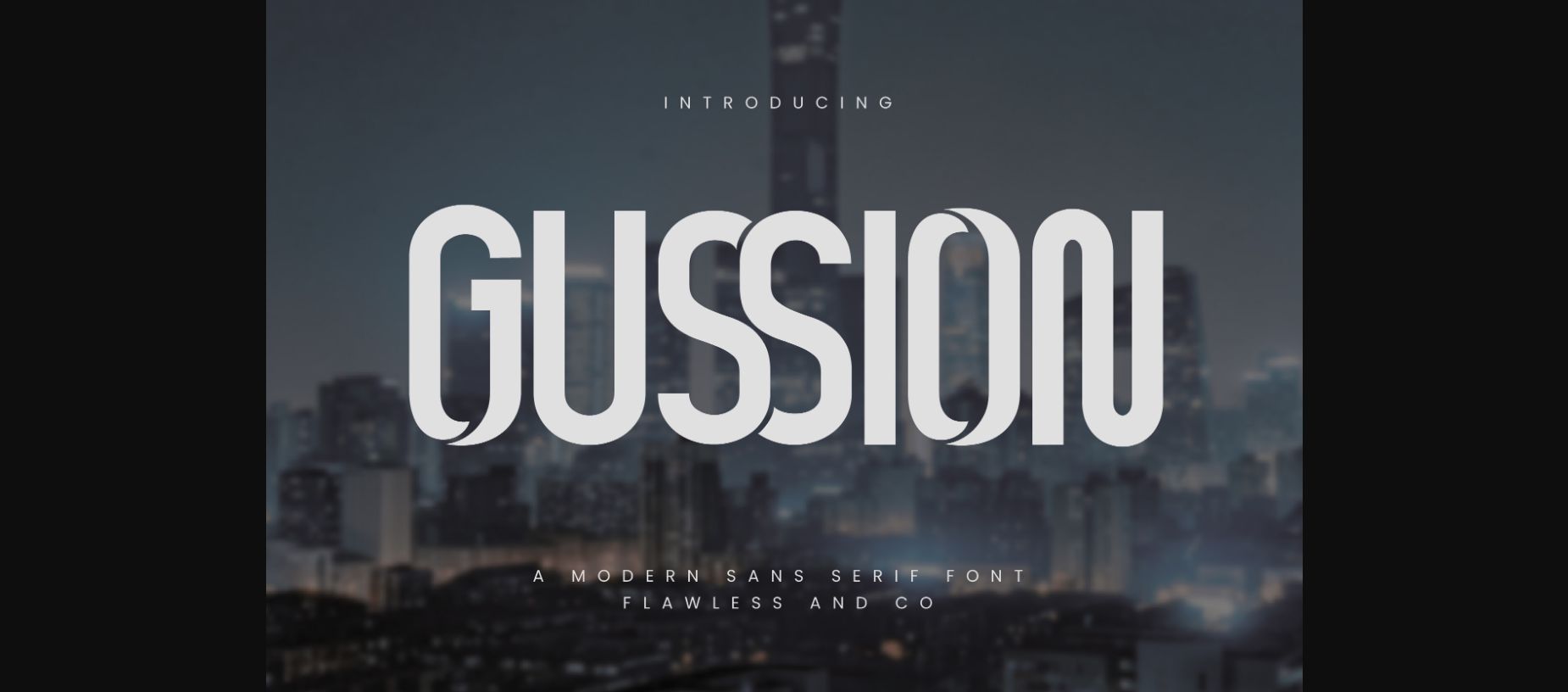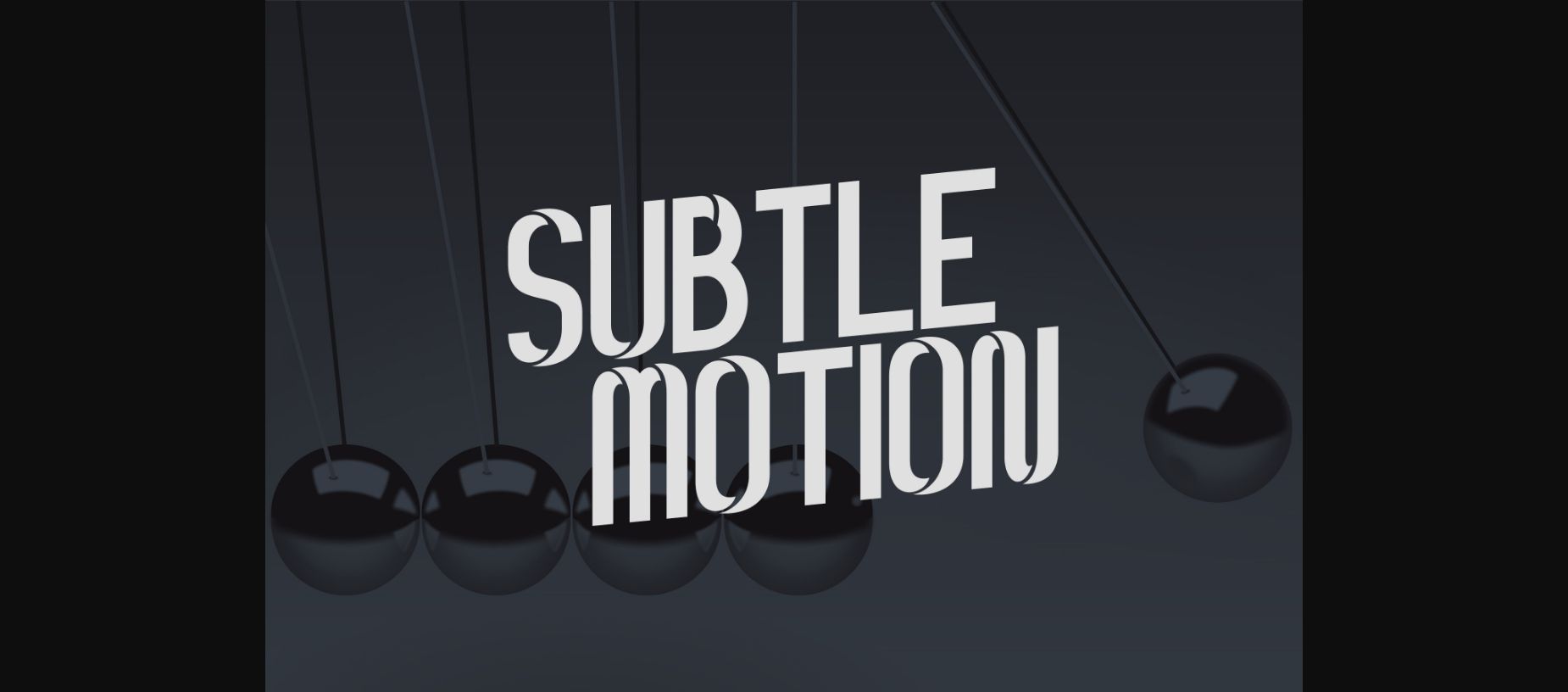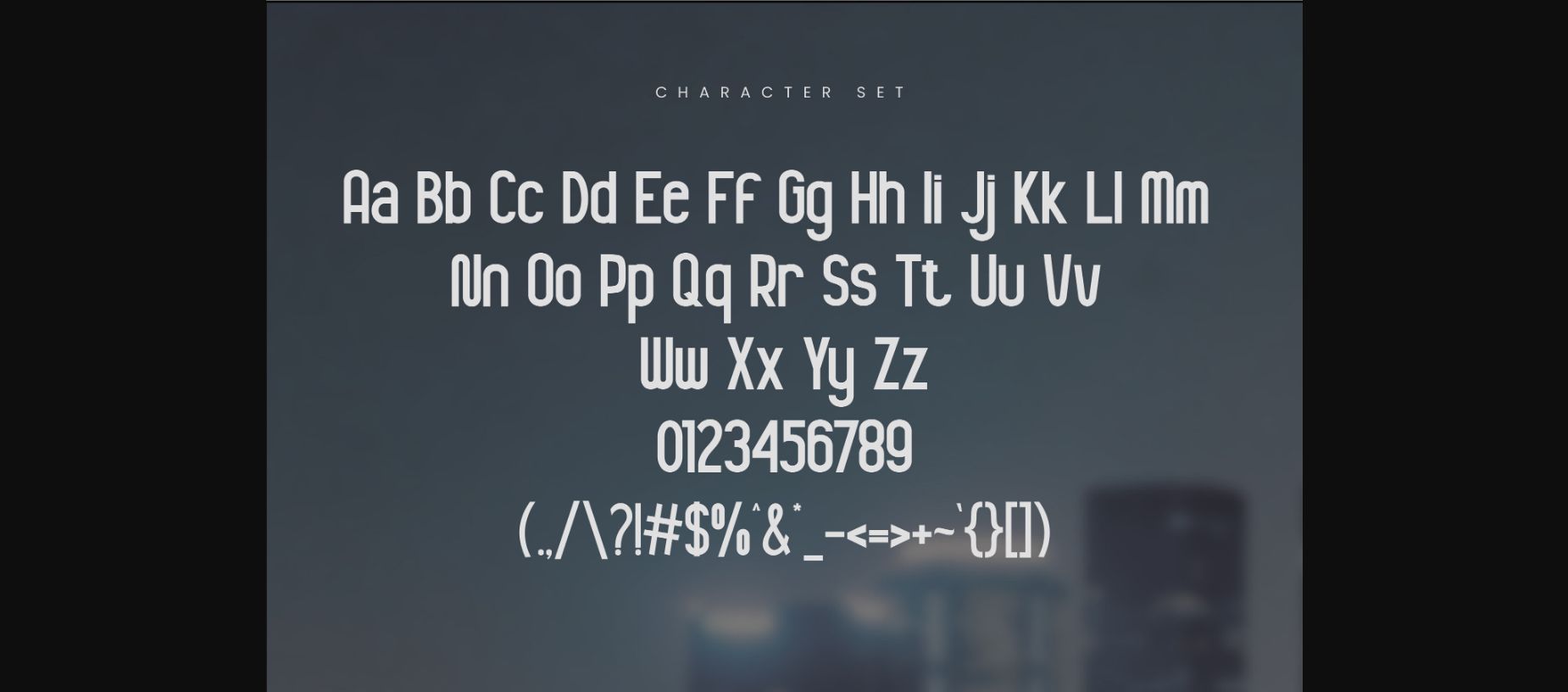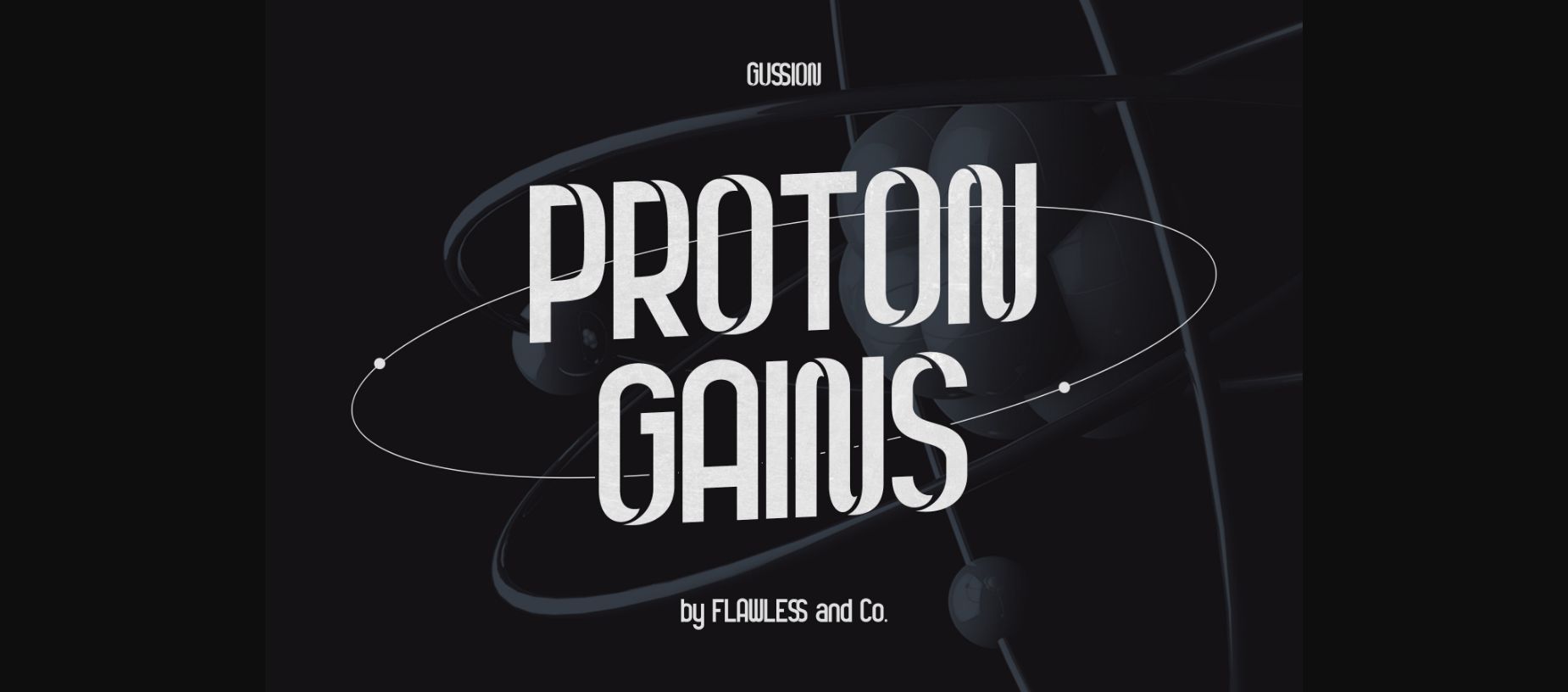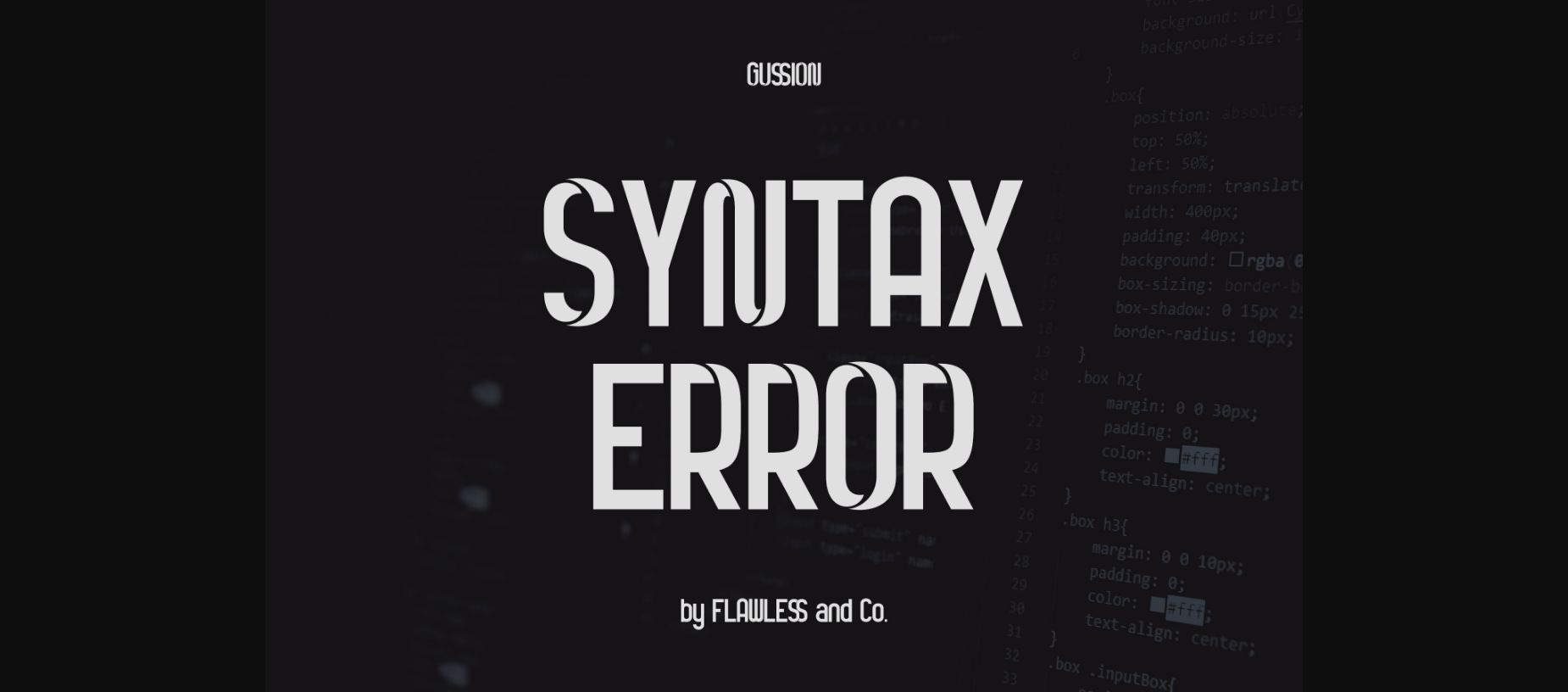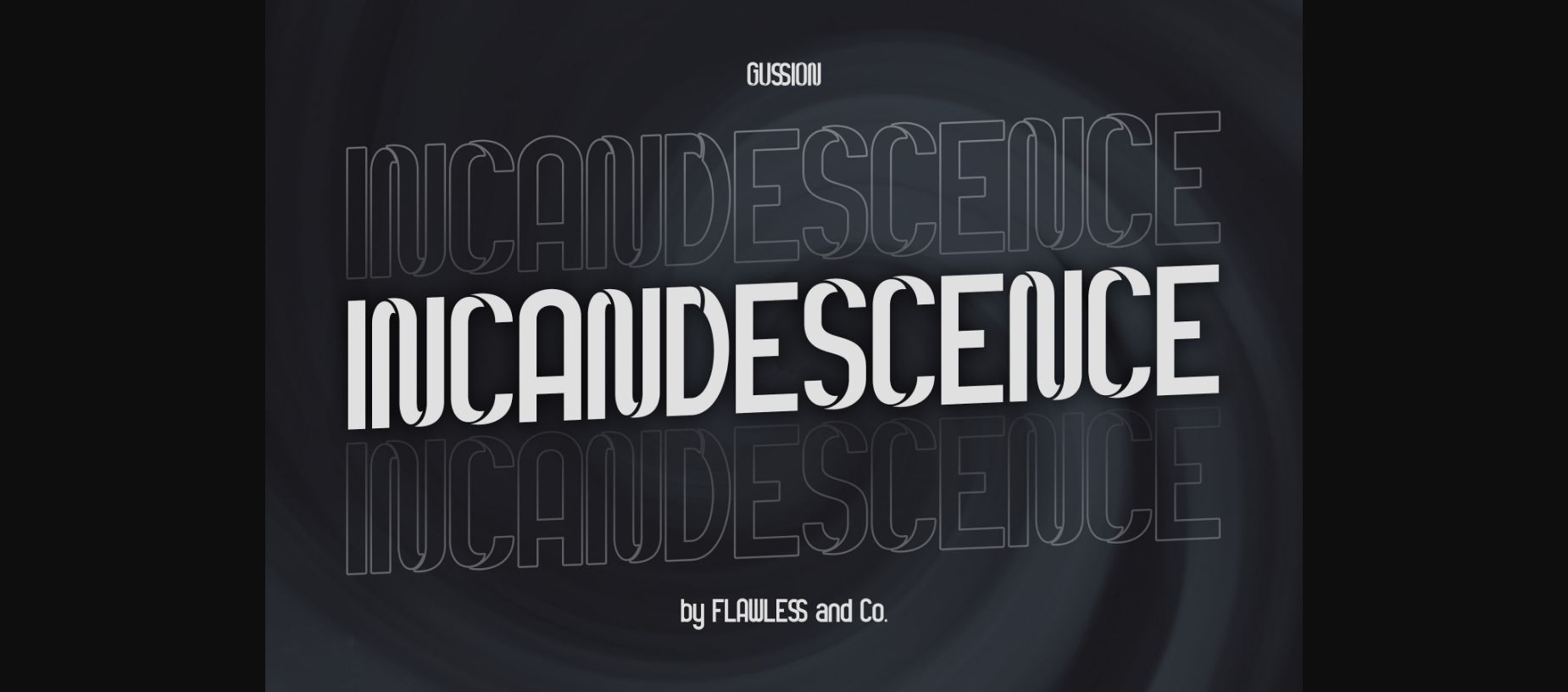
About Gussion Font
Introducing Gussion, a contemporary sans serif font that effortlessly combines modern aesthetics with clean simplicity. Its sleek lines and balanced proportions make it an excellent choice for a wide range of design projects, from minimalist branding to editorial layouts and beyond. With Gussion, your designs will exude a sense of modernity and clarity that captivates your audience.